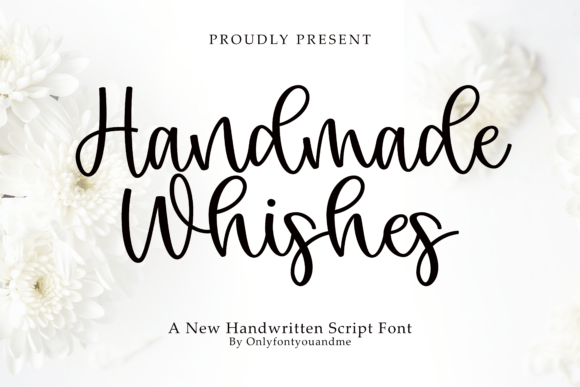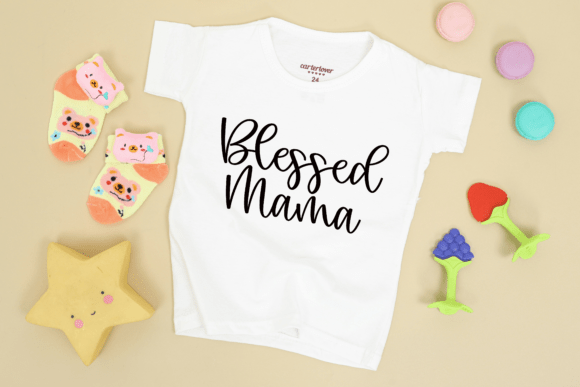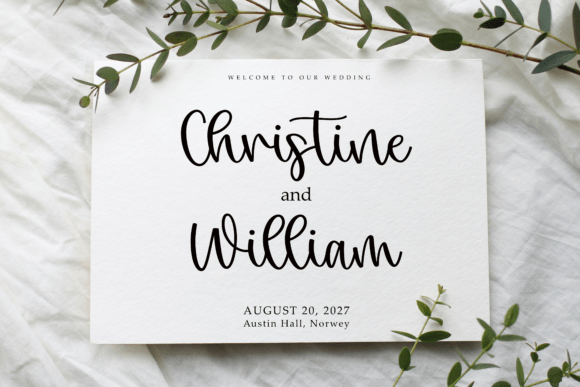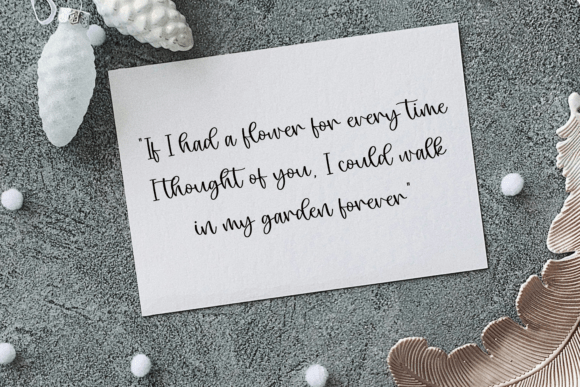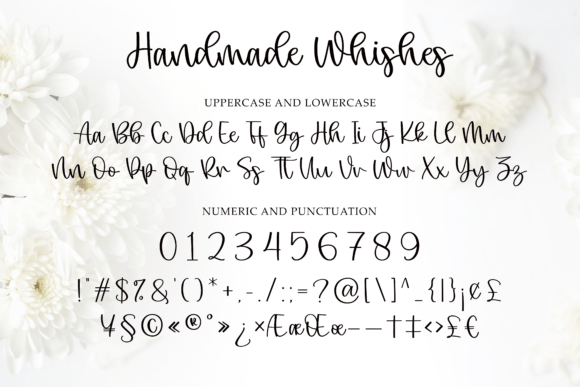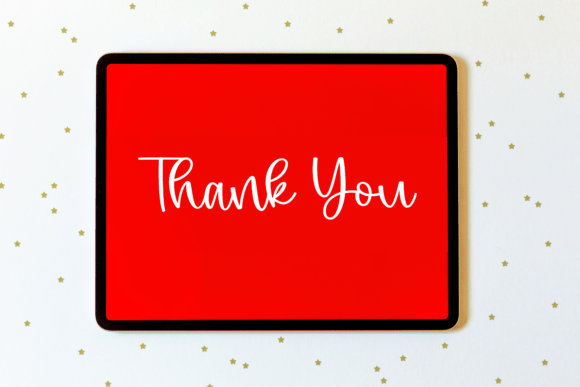
When Handwritten Wishes Come to Life
Have you ever sat down with a blank sheet of paper and a pen, feeling the urge to create something special for a loved one? The pressure to make it perfect can be overwhelming, but what if you could capture the essence of your handwritten wishes in a way that’s both elegant and effortless? This is where the Handmade Wishes Font comes in – a modern handwritten script font designed to bring your handwritten wishes to life.
With its smooth, connected strokes and organic flow, the Handmade Wishes Font is perfect for designers looking to add a personal touch to their projects. Whether you’re creating wedding invitations, greeting cards, or branding for lifestyle or feminine products, this font is sure to make your designs stand out. Its charming and personal look makes it a valuable asset for any designer looking to add a touch of handmade magic to their work.
Key Features of Handmade Wishes Font
- Unique Characteristics: Hand-drawn, cursive design with a whimsical and elegant feel, perfect for creating eye-catching headlines and titles.
Review of Handmade Wishes Font
I recently had the chance to work with the Handmade Wishes Font, and overall, I was impressed with its unique charm and character.
- The Handmade Wishes Font has a lovely, whimsical feel to it, making it perfect for projects that need a touch of personality.
- The font is well-suited for titles and headings, where its bold and playful strokes can really shine.
- The font is also highly customizable, allowing designers to adjust the spacing and kerning to their liking.
- The font may not be the best choice for body text, as its irregularities can make it difficult to read.
- The font may not be suitable for formal or professional projects, as its whimsical nature may not be taken seriously.
Overall, I think the Handmade Wishes Font is a great choice for designers looking to add some personality to their projects. While it may have some limitations, its unique charm and customizability make it a valuable addition to any design toolkit.
The Handmade Wishes Font is perfect for:
- Wedding invitations and decorations
- Special occasion cards and gifts
- Personalized stationery and prints